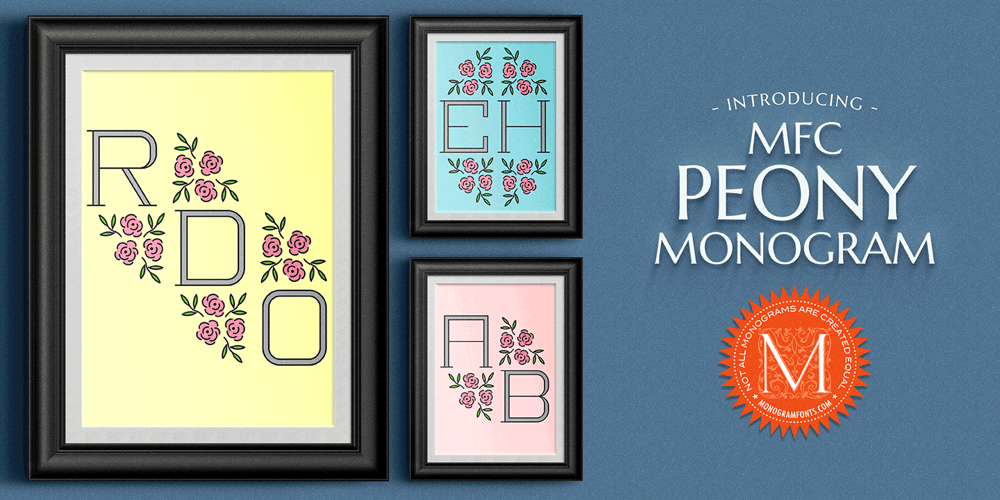
MFC Peony Monogram Font Family was designed by Brian J. Bonislawsky and published by Monogram Fonts Co.. MFC Peony Monogram contains 4 styles and family package options. The inspiration source for Peony Monogram was a unique stackable monogram design with floral accents from a vintage embroidery publication. Originally intended to adorn handkerchiefs, this simple pattern has so many design possibilities, from colorizing to formatting options. You can really play around with this monogram font! Peony Monogram can create one, two, or three letter monograms, even basic titling due to its unique design. Because of Peony’s unique stackable monogram formatting, make certain that the point size of the font is the same as the leading being applied to the font in order to minimize gapping between stacked forms. While we’ve adjusted this within the font, your program may override these settings. Download and view the MFC Peony Monogram Guidebook if you would like to learn a little more.